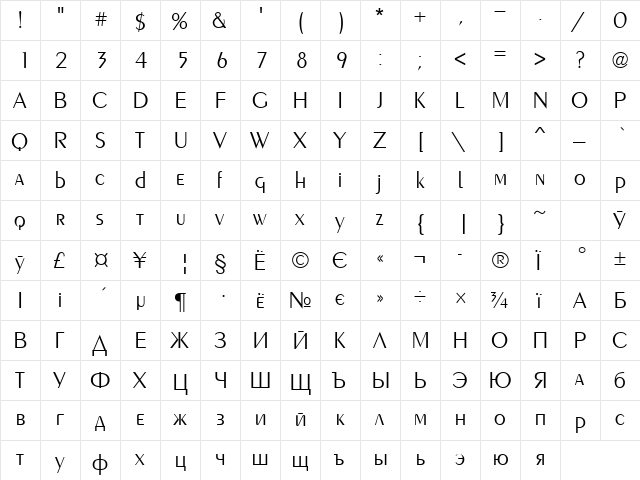
PentaLight Normal Font Preview
PentaLight Normal
PentaLight Normal Font Details
Design Context for PentaLight Typeface
PentaLight offers clean, dependable letterforms without strong stylistic allegiance, making it a practical choice for designers who need flexibility. Its slender proportions lend an understated elegance to any composition.